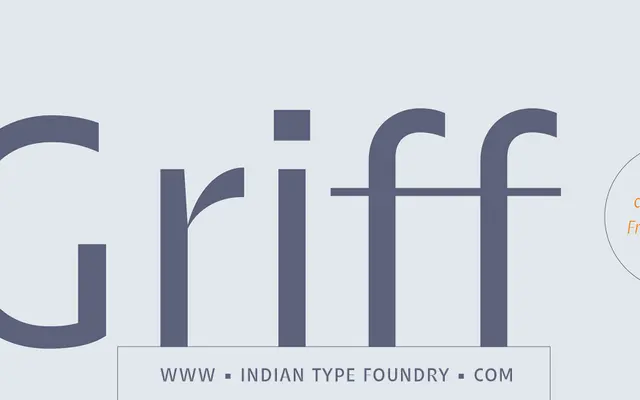
A five-weight humanist sans-serif from Indian Type Foundry with matching italics across each weight.
Ten styles in total, running from Light to Bold with a corresponding italic for each weight. The family is positioned as a clean, versatile text face suited to a range of professional applications. ITF offer the complete set at a bundled price through their standard retail licensing model.
Griff presents as a humanist sans-serif based on its Latin script coverage and the naming conventions used by ITF, sitting within a warm, text-friendly sans tradition rather than geometric or grotesque lineage.